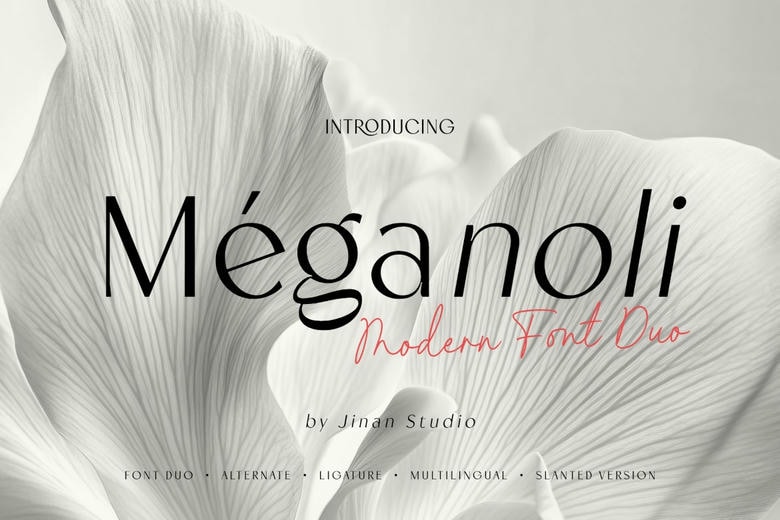
Meganoli Font Duo
Presenting the high-end and modern font pair Méganoli, which is an extremely elegant and stylish font pair. With sleek and classic sans serif mixed with an elegant flowing, modern script, Méganoli will help your creative works command a certain je ne sais quoi, that sense of classic refinement.
This font pairing is a perfect match for branding purposes, editorial design, fashion, packaging, and wedding stationery, and it provides successful congruence of structure and grace. The sans-serif is clear and authoritative whereas the script creates a personal and art-like impression.
Just like planning an exclusive logo, a swanky invitation, or a fancy premium brand identity, your message will forever be treated with great style using Méganoli.